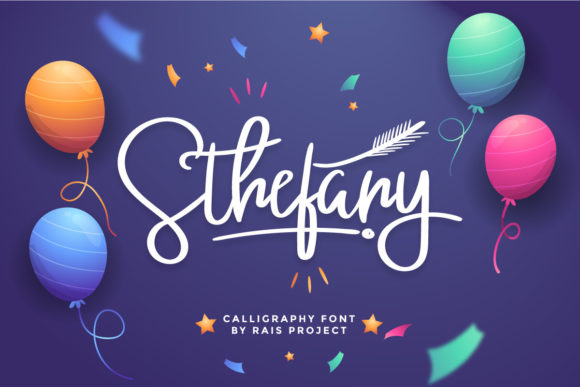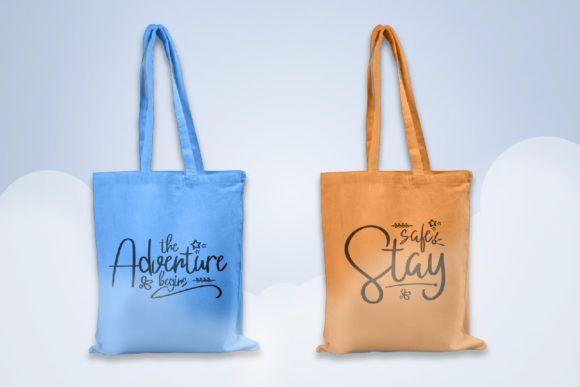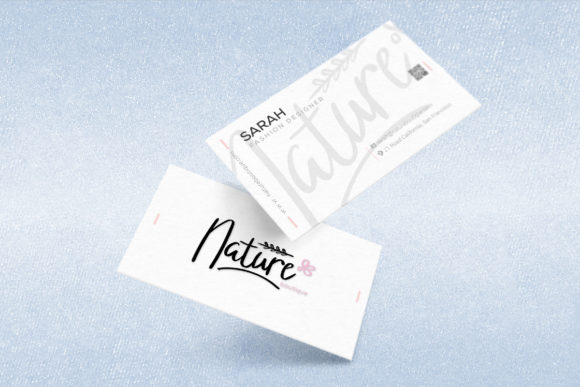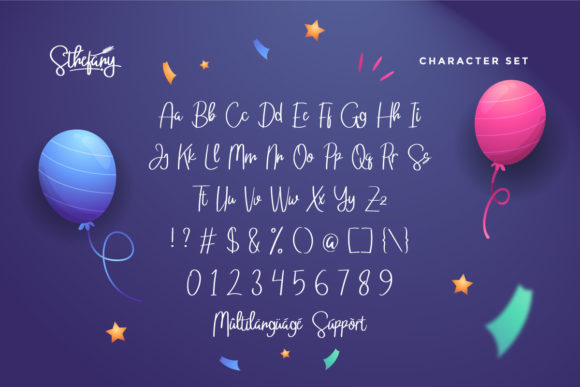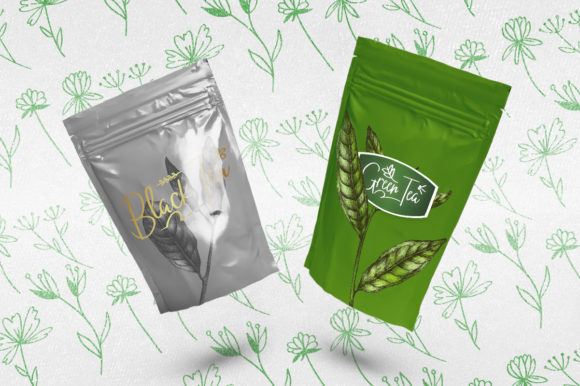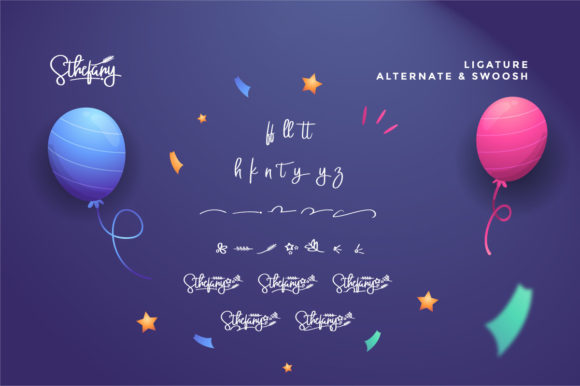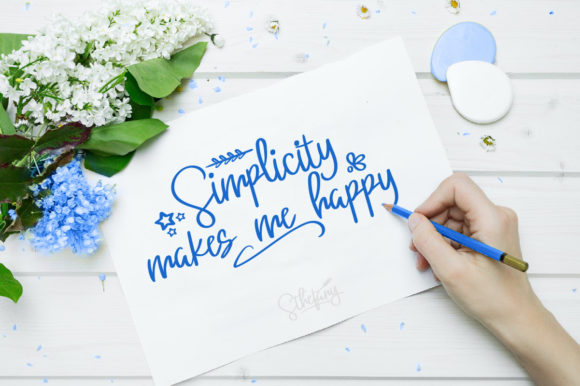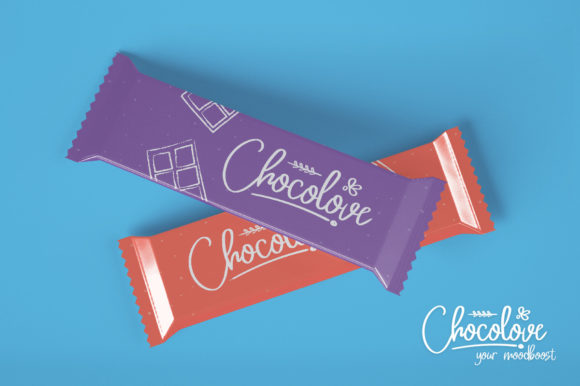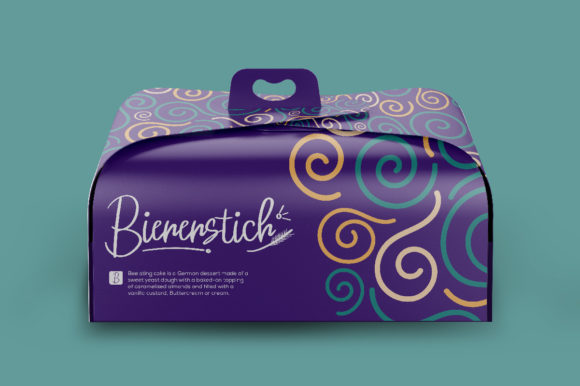
Sthefany Font
About Sthefany Font
Sthefany is a lovely and timeless handwritten font. It is the best choice for creating eye catching logos, branding and quotes. Every letter has a unique and beautiful touch, which will make your design come alive!